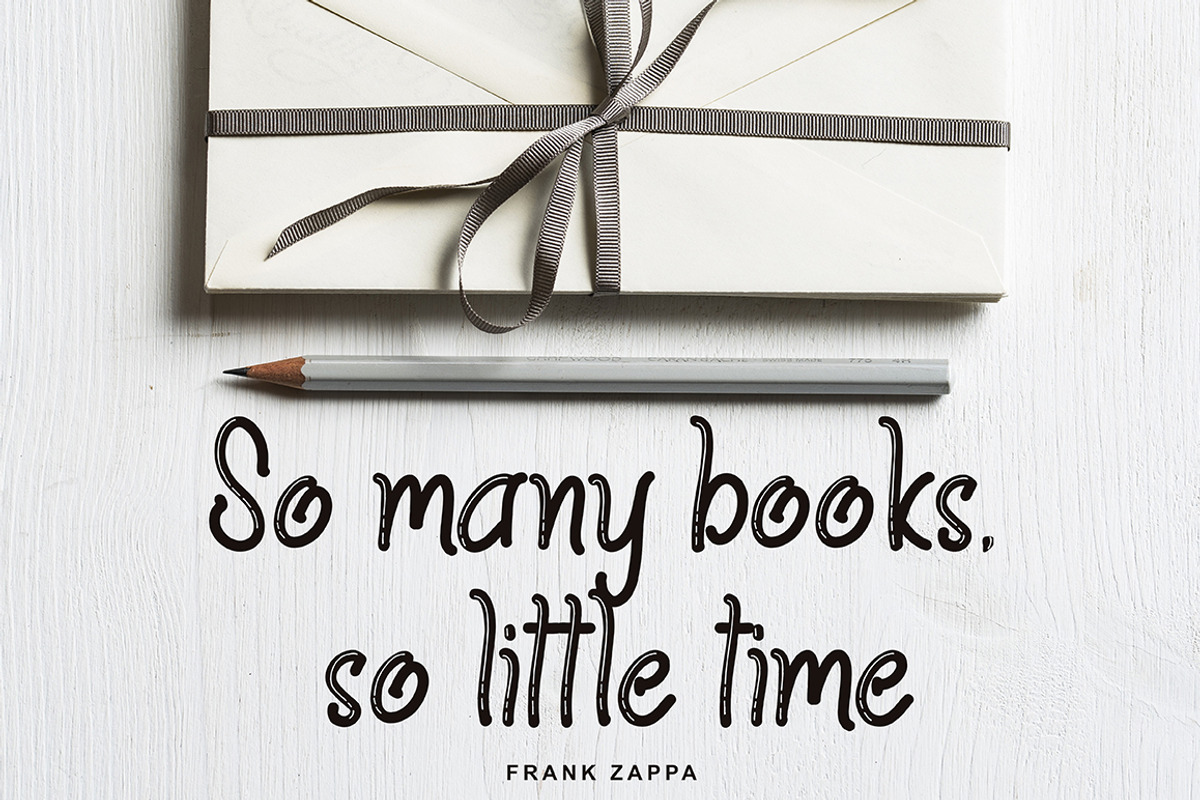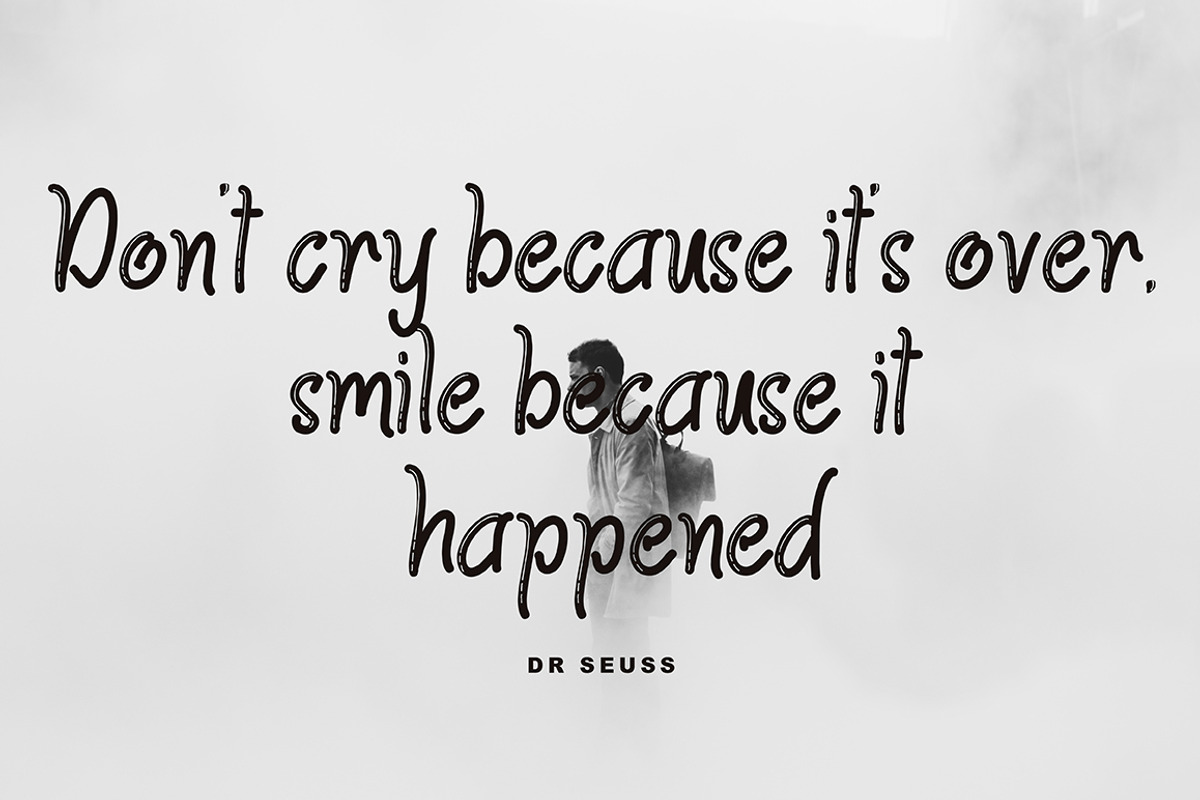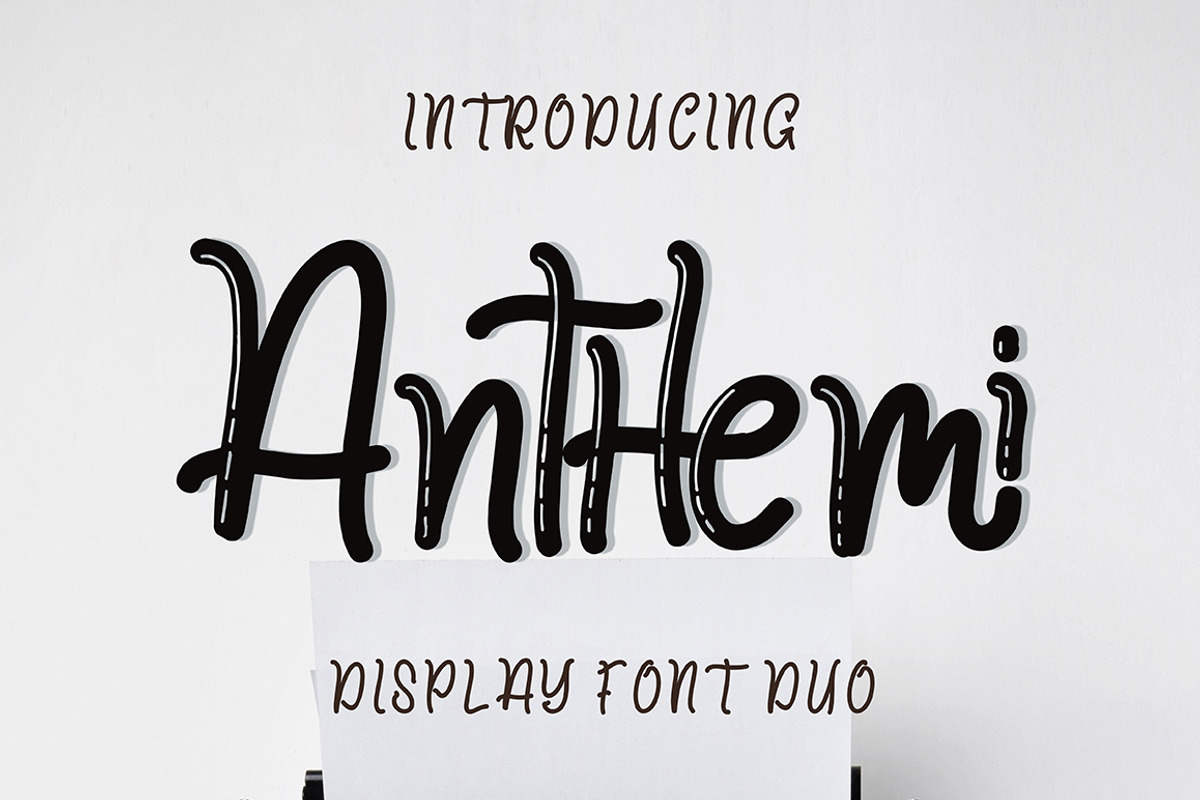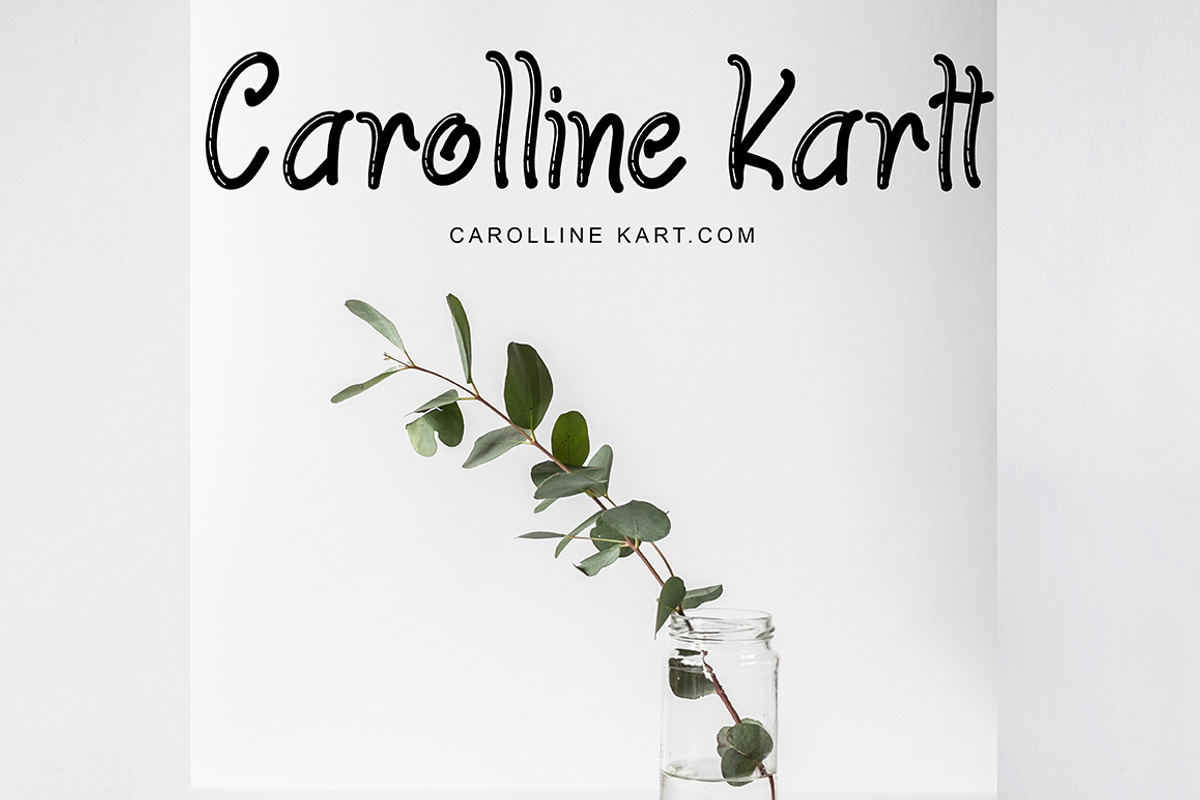
Anthemi Font Duo
Anthemi font, font with new style, this font will perfect for many different project ex: quotes, logo, blog header, poster, banding, fashion, apparel, letter, invitation, stationery, etc...
Why Anthemi Font Duo is worth a look
Anthemi Font Duo by pineungtype fits naturally into Branding, posters, packaging, typography.